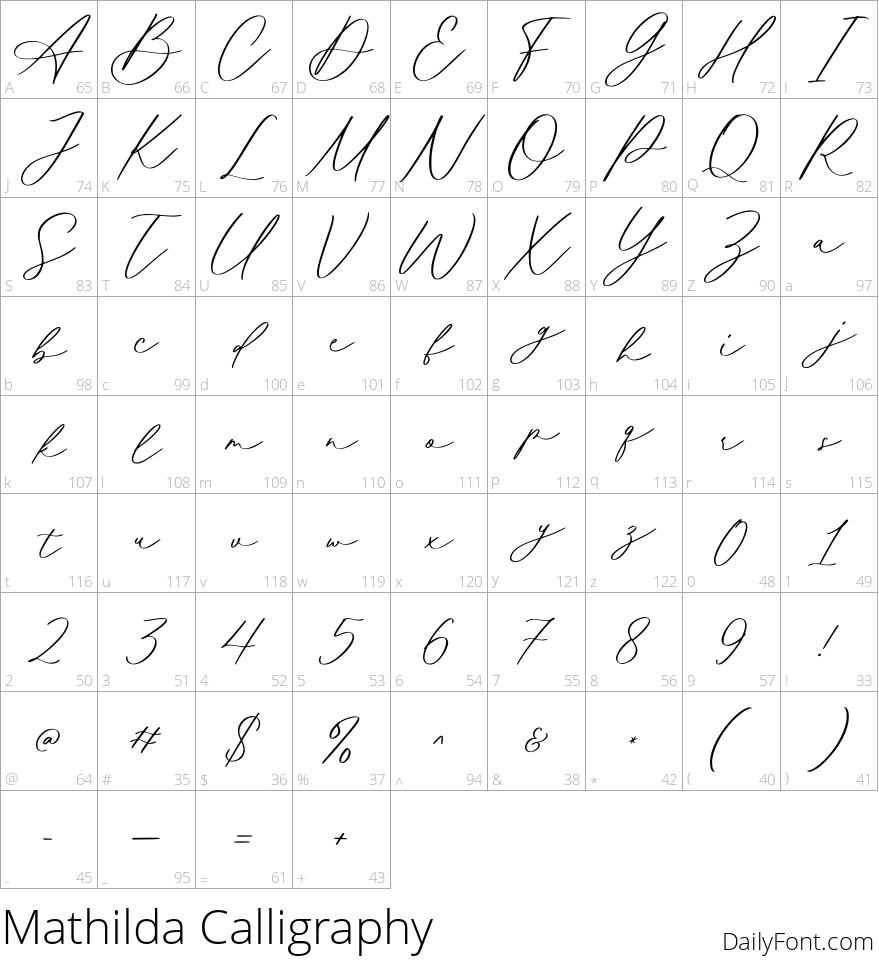
Mathilda Calligraphy
Mathilda Calligraphy is a versatile and elegant font that seamlessly blends traditional calligraphy with modern design aesthetics. Ideal for product packaging, branding projects, magazines, and social media, this font adds a touch of sophistication to any visual presentation. Whether you're crafting an invitation for a wedding or simply looking to elevate your online content, Mathilda Calligraphy offers a distinctive flair that captures attention.
The flowing lines and graceful curves of Mathilda Calligraphy ensure that your text stands out, conveying not just words but also emotion and creativity. Its completeness makes it an excellent choice for various applications, from high-end branding to casual expressions on social media. Dive into the world of creativity and let Mathilda Calligraphy elevate your projects—making every word count and every visual unforgettable.